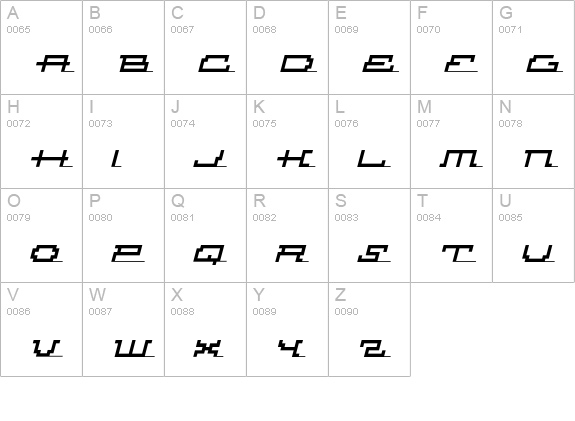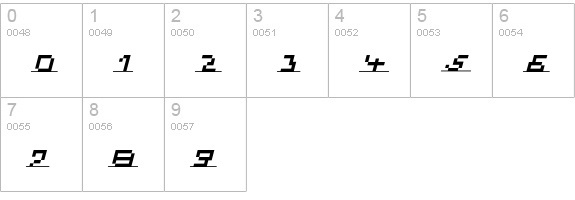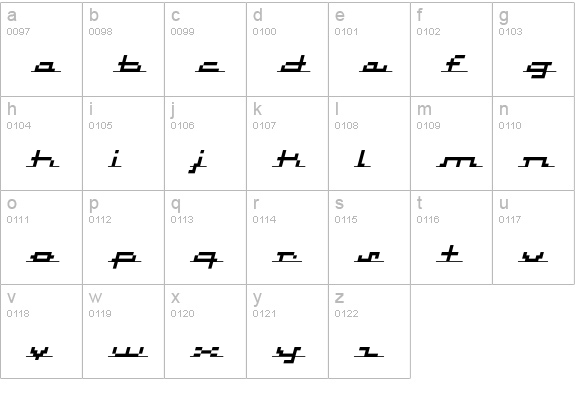
Introducing Atomic-InlineScriptItalic font, a visually captivating typeface that seamlessly combines elegance and modernity. With its sleek and stylish design, this font is perfect for adding a touch of sophistication to any project. The Atomic-InlineScriptItalic font features a unique italicized style that exudes a sense of creativity and flair. Best of all, this stunning font is completely free to download at FontsMarket.com. Whether you're working on a branding project, designing a website, or creating eye-catching marketing materials, the Atomic-InlineScriptItalic font is sure to make a lasting impression. Elevate your designs with this versatile and striking font that effortlessly blends tradition with innovation. Download it today and unleash your creativity with Atomic-InlineScriptItalic font!